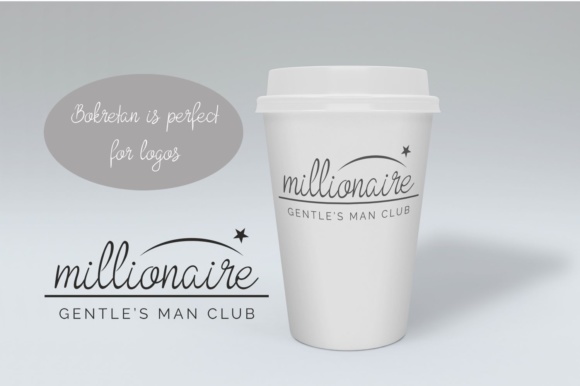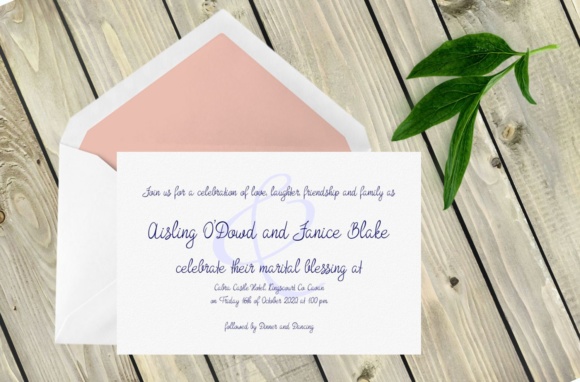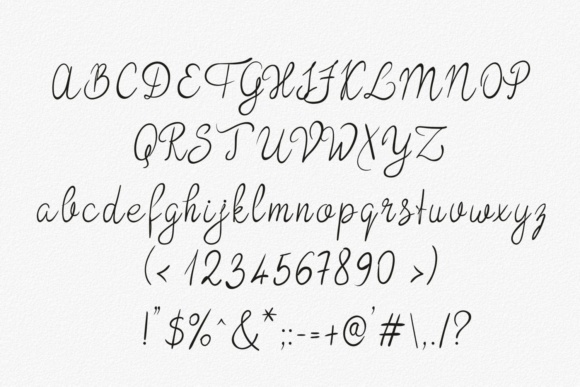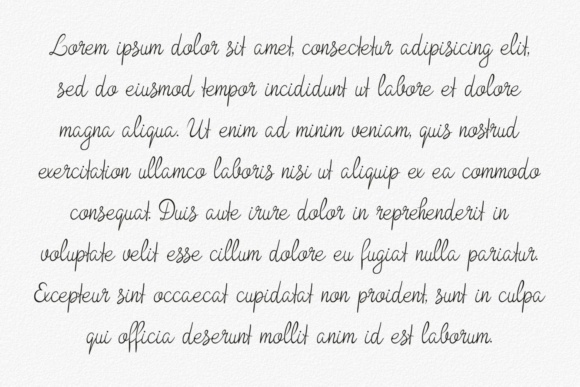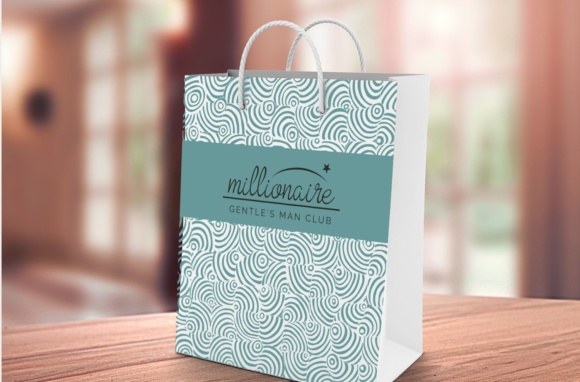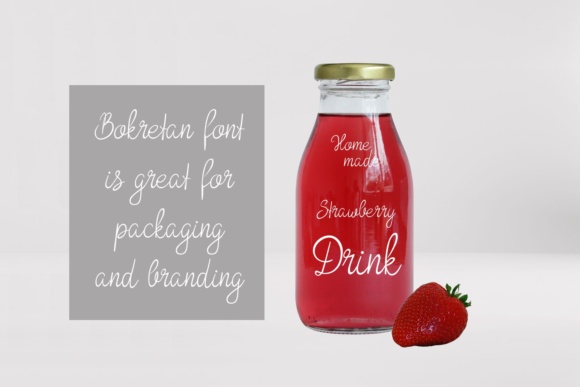
The Perfect Touch of Whimsy: Unleashing the Magic of Bokretan Font
Have you ever found yourself scribbling down ideas in a notebook, only to realize that your handwriting has become a vital part of your creative process? For designers, that ‘aha’ moment is often when the perfect font comes to mind, elevating a project from good to great. For me, it’s a moment of pure joy, knowing that I’ve found the perfect tool to bring my vision to life.
Bokretan Font is a delightful, light girly handwritten font that’s perfect for logos, branding, packaging, and more. Its playful touch adds a unique charm to any design, making it an invaluable asset for designers seeking to create something truly special. With Bokretan Font, you’ll be able to infuse your projects with a sense of personality and whimsy that’s sure to captivate your audience.
• Unique Characteristics: The font features a unique blend of traditional and modern elements, with intricate details and ornaments that set it apart from other fonts.
Bokretan Font Review
Overall, I was excited to dive into Bokretan Font, a unique and quirky script font. ✨ One of the things that immediately caught my attention was the beautiful, handwritten feel it adds to any text. The flourishes and connections between letters give it a sense of elegance and sophistication. ✨ I also appreciate how well it works for both digital and print media, making it a versatile choice for designers.
• Beautiful, handwritten feel ✨
• Unique and elegant flourishes ✨
• Works well for digital and print media
However, I do have some concerns about Bokretan Font. ⚠️ One of the main limitations is that it can be difficult to read at smaller font sizes, which may not be ideal for body text or headlines that need to be easily readable. Additionally, the font’s quirkiness can sometimes make it feel inconsistent or unpredictable, which may not be suitable for all design projects.
• Difficult to read at smaller font sizes ⚠️
• Can feel inconsistent or unpredictable ⚠️
Overall, I would recommend Bokretan Font for designers who want to add a touch of elegance and sophistication to their work. However, it’s essential to be mindful of its limitations and use it judiciously in the right contexts.
Tips for Getting the Most Out of Bokretan Font
To get the most out of Bokretan font, use it for titles, headings, and other prominent text elements. It’s ideal for creating a unique and eye-catching visual identity. You can also experiment with different font sizes, colors, and combinations to create a distinctive look.
Bokretan font is commonly used for creative projects, such as graphic design, digital art, and typography. It’s also suitable for branding, marketing materials, and web design.